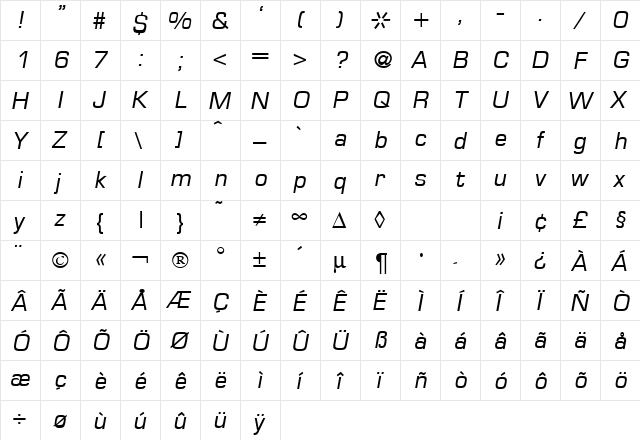
Eurasia RegularItalic
Design Context for Eurasia Typeface
Eurasia takes a measured approach to typography — its balanced proportions and neutral character make it a reliable workhorse for both digital and print work. Its italic angle brings a sense of urgency and motion to the letterforms.
Pro Tip: Use Eurasia for emphasis, pull quotes, and subheadings where its slanted energy can add rhythm to the layout.